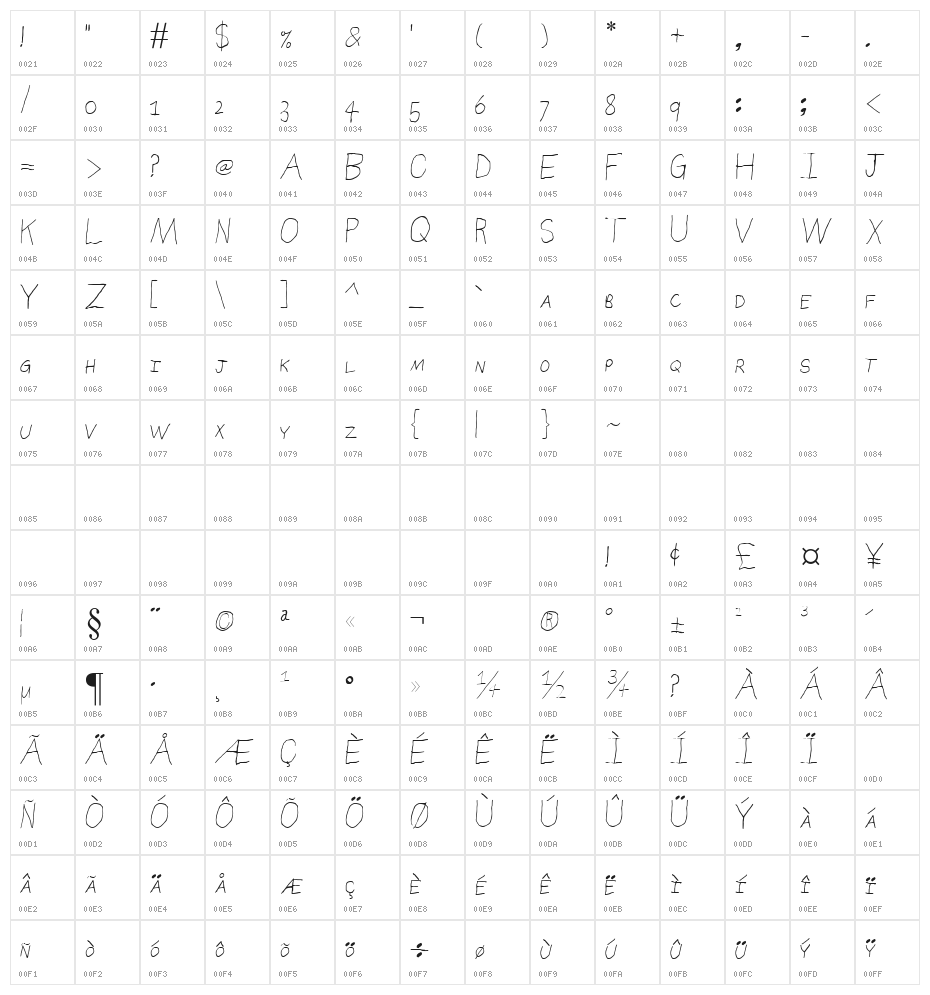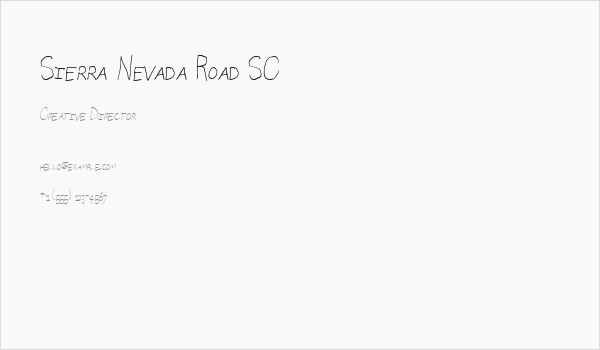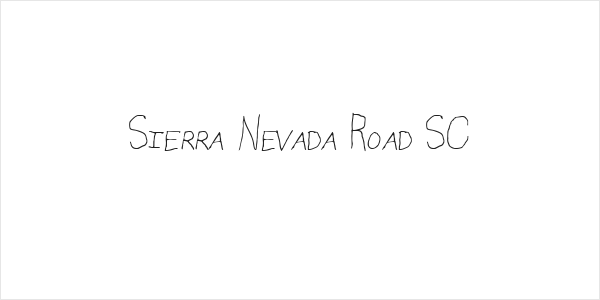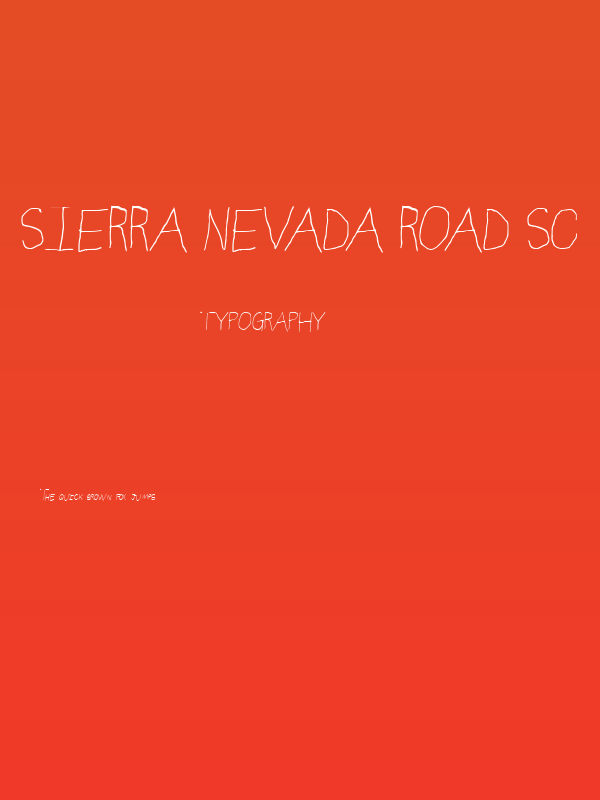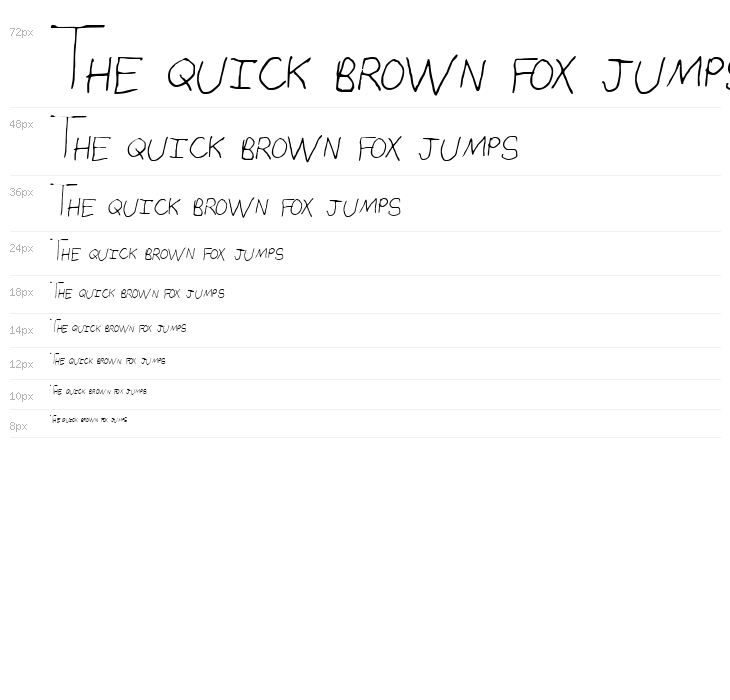
Sierra Nevada Road SC Font
Sierra Nevada Road SC Description
This font features a handwritten style with a casual and informal appearance. The letters are slightly irregular, giving it a natural and organic feel. The strokes are uneven, mimicking the look of a pen or marker on paper. This font includes both uppercase and lowercase letters, numbers, and a variety of special characters. The overall design is playful and approachable, making it suitable for projects that require a personal touch. The font's unique character shapes add a distinctive flair, making it stand out in creative designs.